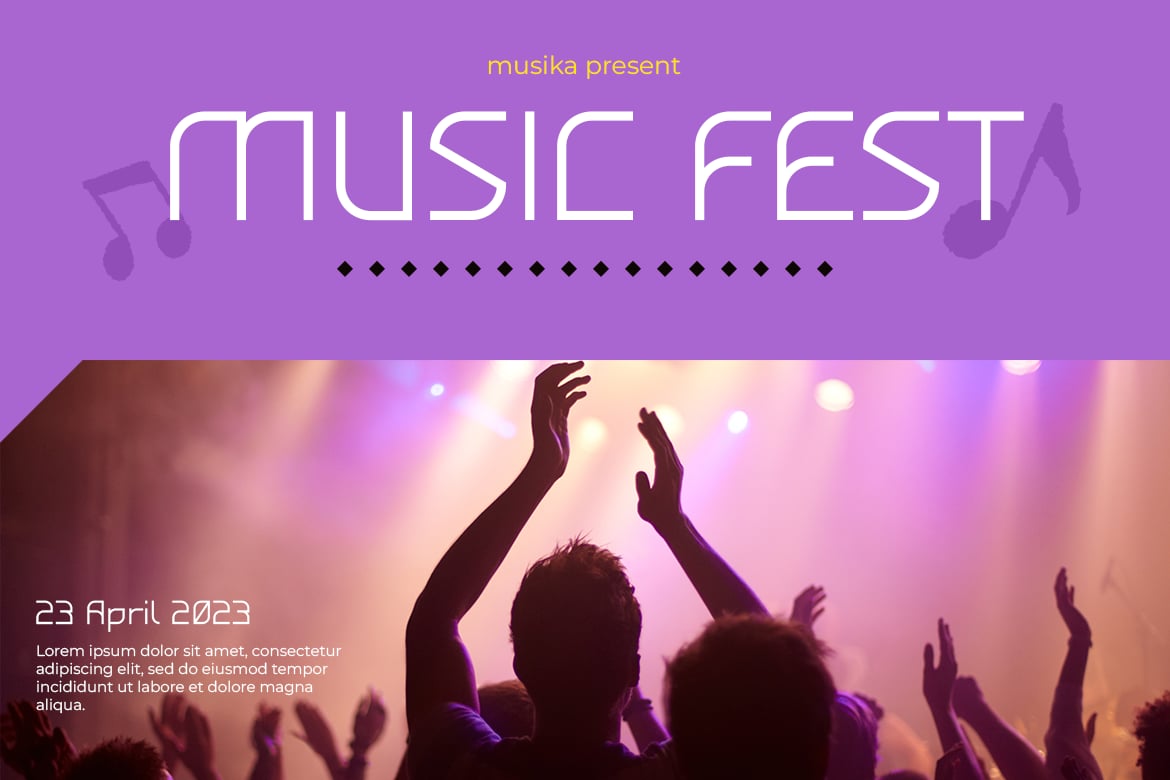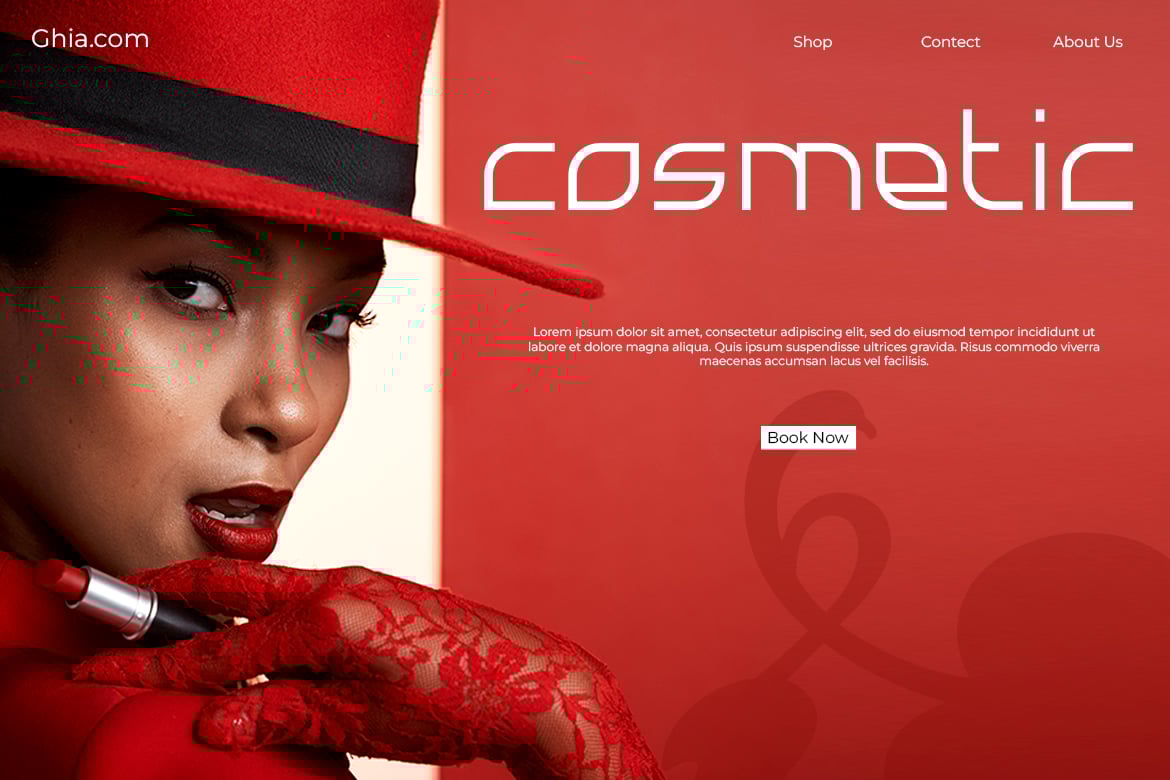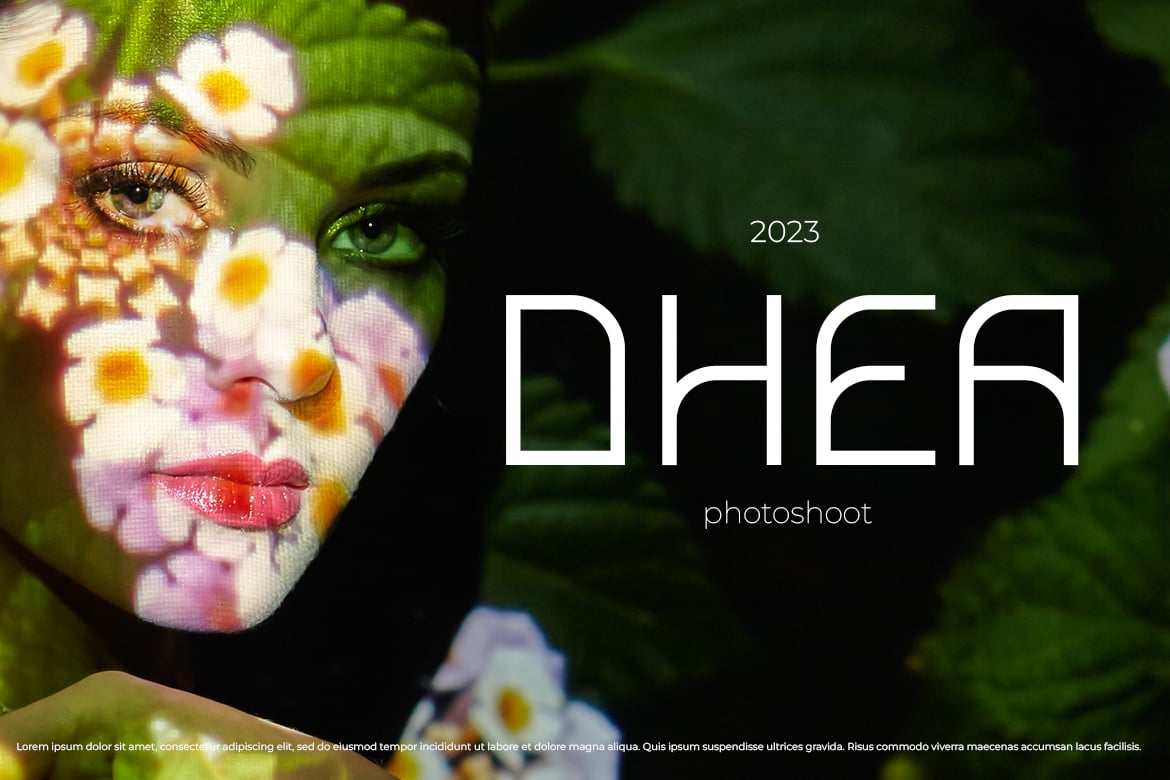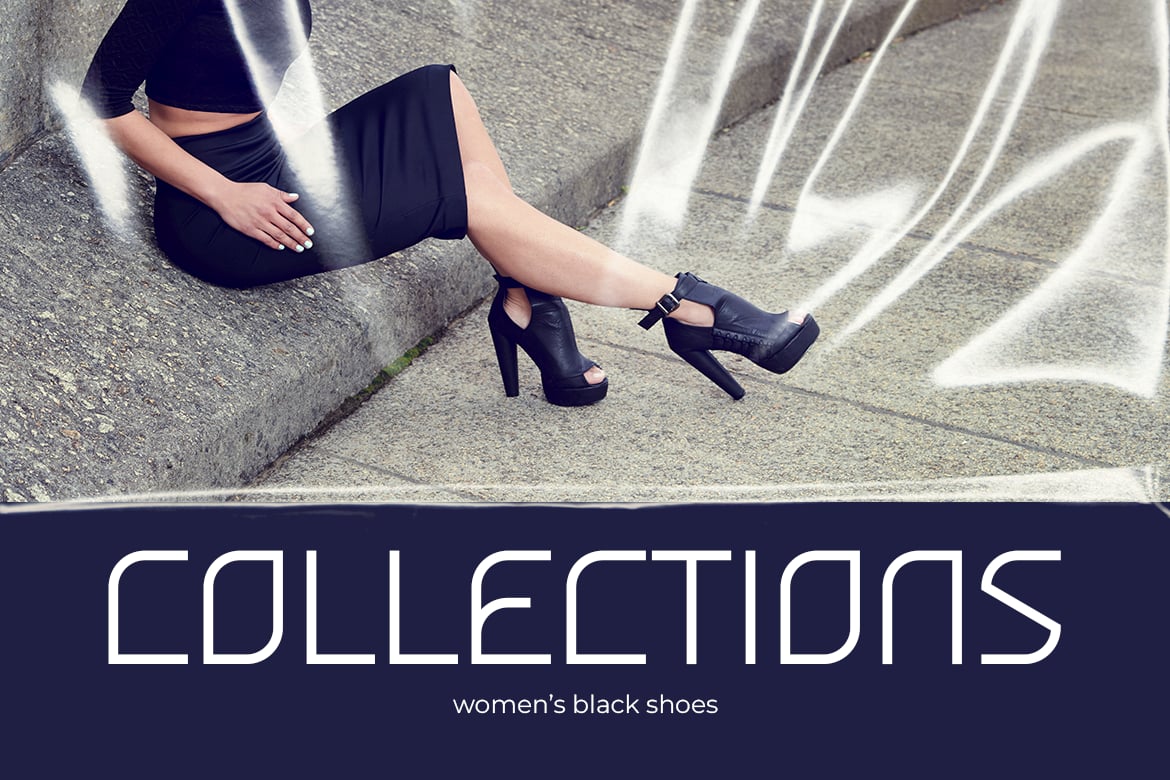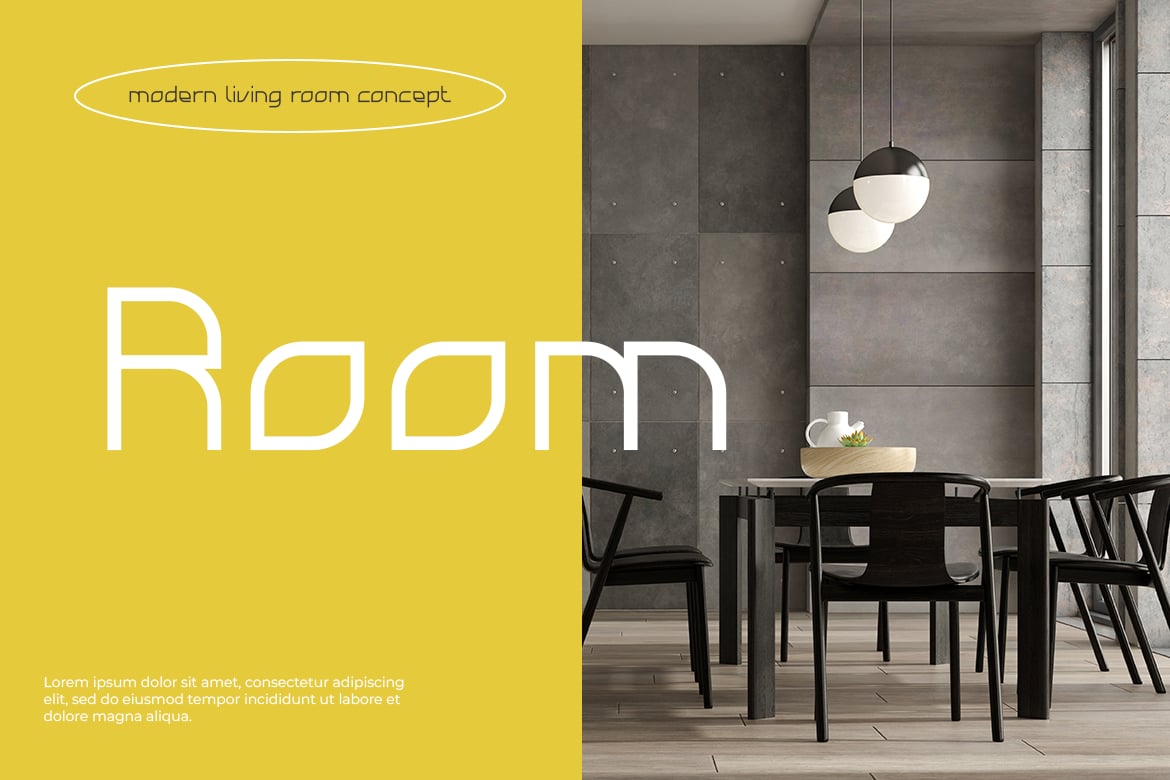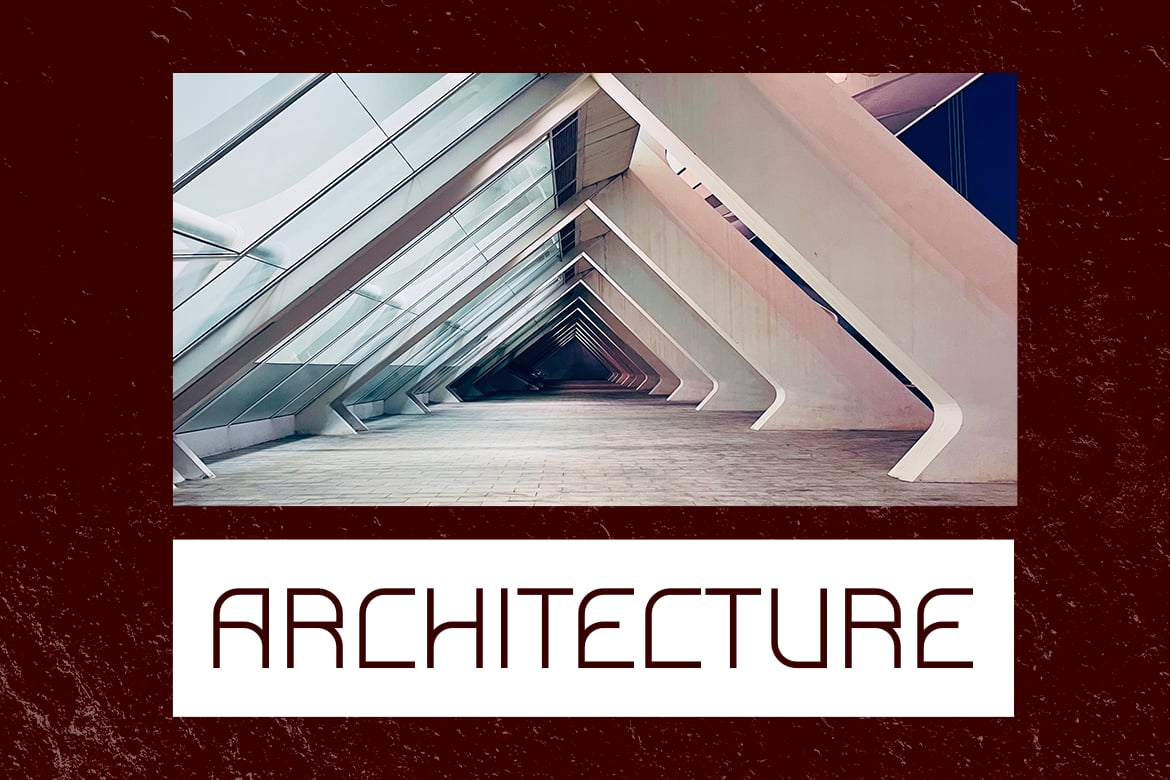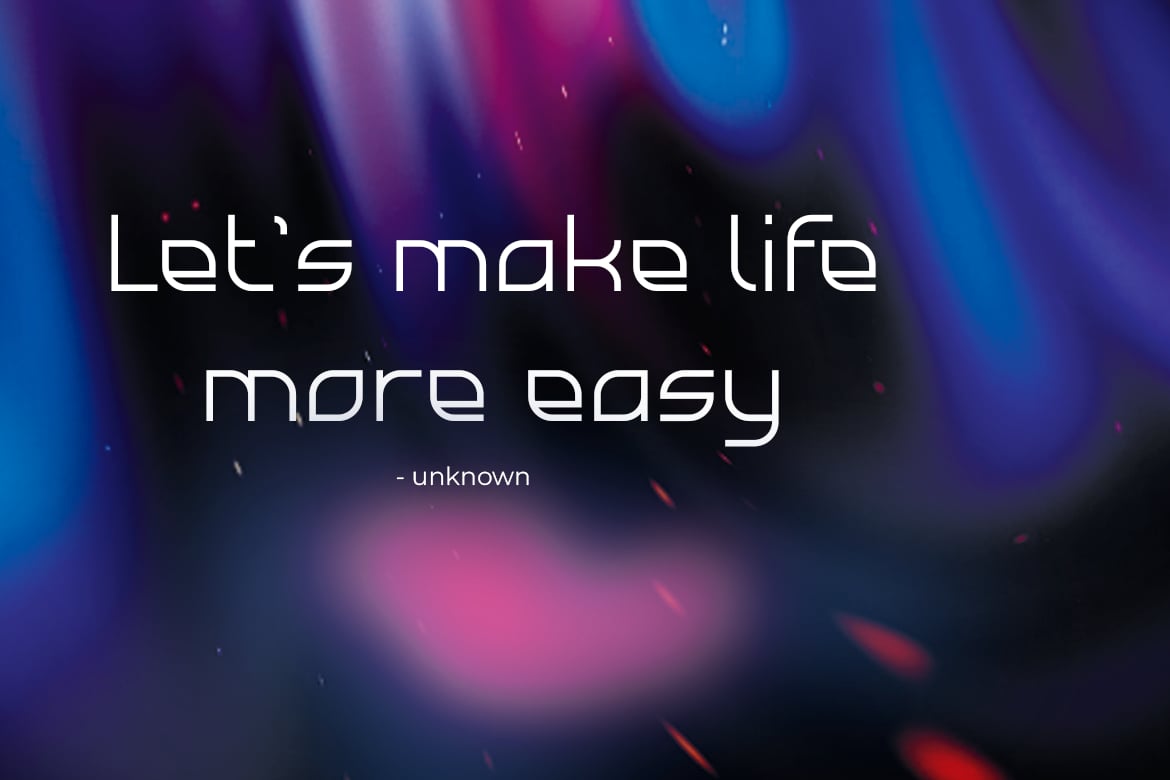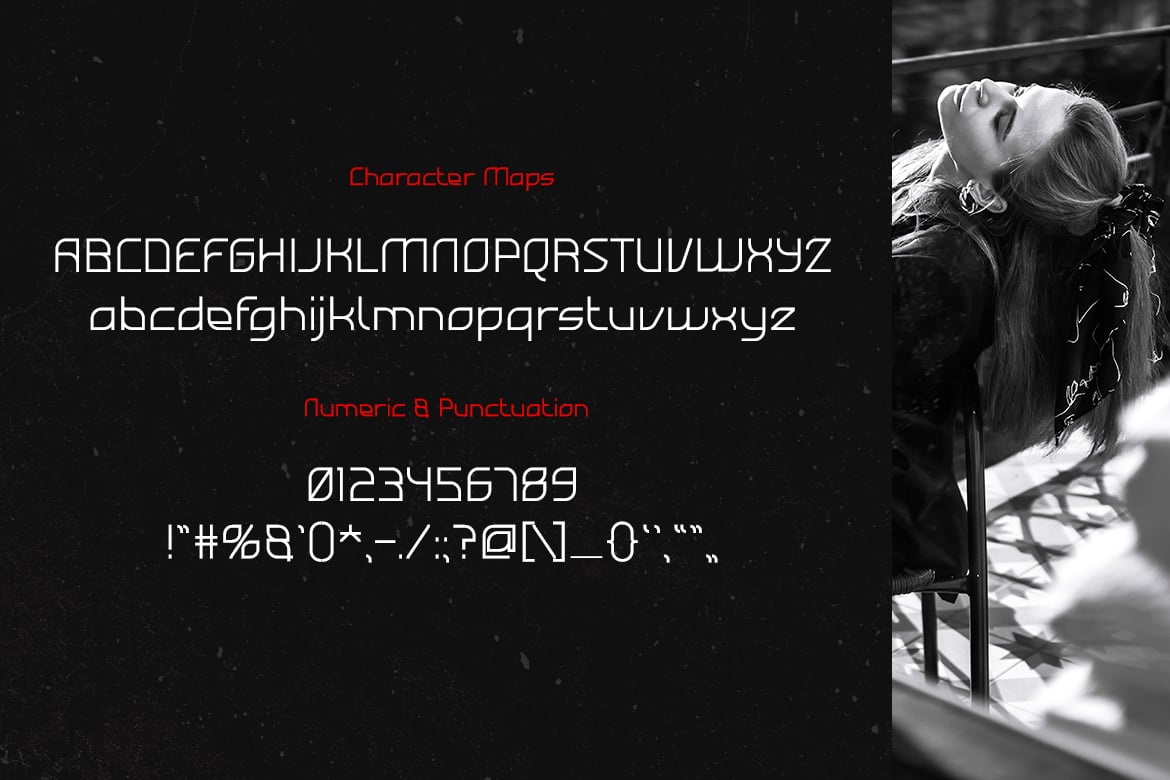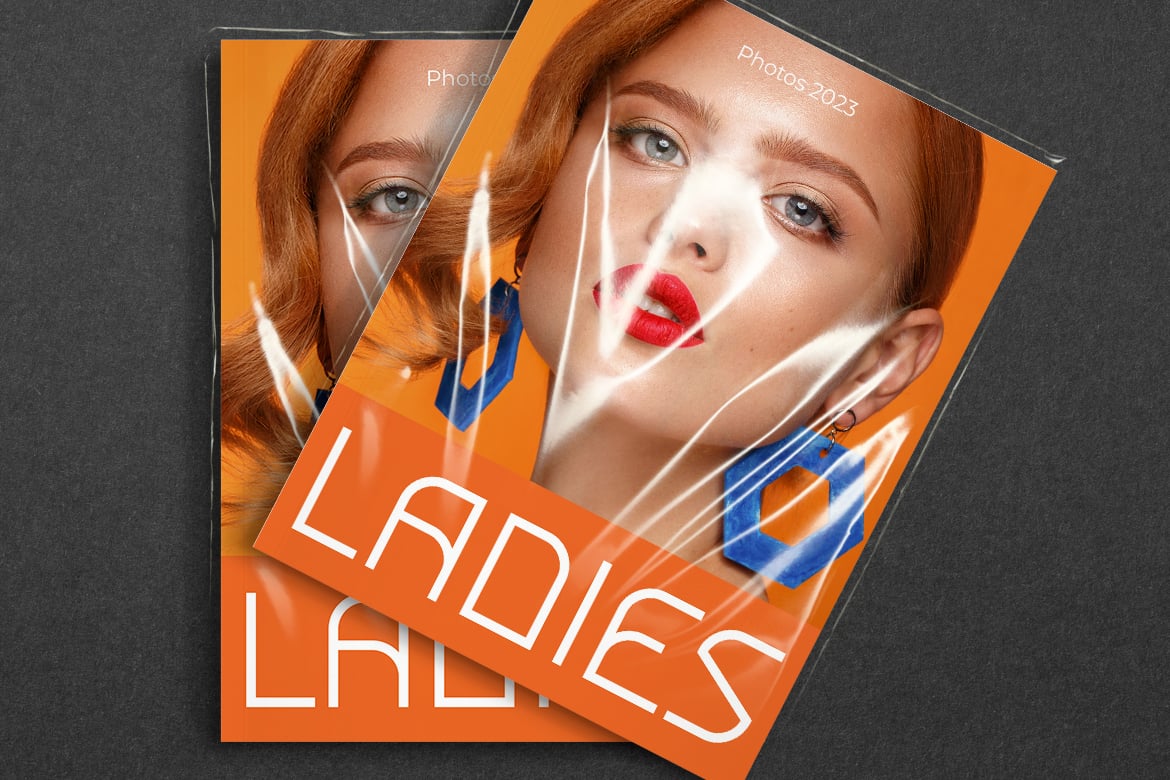
Quiver – Modern Futuristic Fashion Font
Introducing Quiver, a sleek and modern font perfect for fashion, promotions, architecture, interior design, and magazine projects. With its futuristic design, Quiver brings a touch of elegance to any design, while its clean lines and smooth curves make it easy to read at any size. Use Quiver for your logos, branding, product packaging, social media graphics, and more. This font will take your design to the next level and make a lasting impression on your audience.